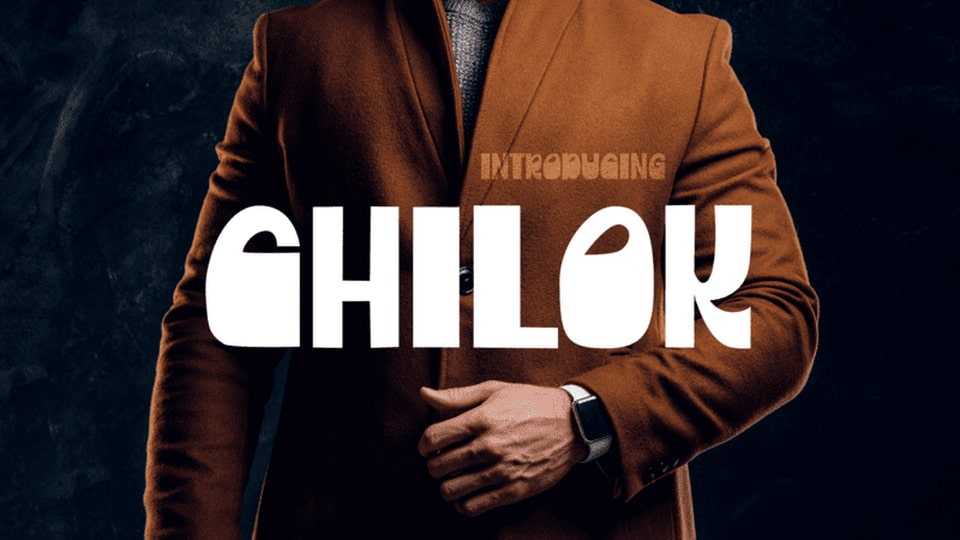
Download Chilok font, an elegant display typeface. Heavy at the bottom and looking quite elegant. Chilok will be putting more weight on the word it is written.